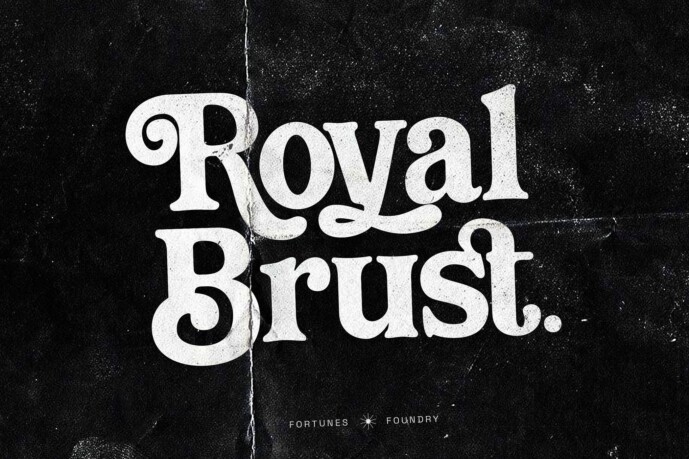
Royal Brust Font
Introducing Royal Brust , a retro-inspired serif font designed for eye-catching advertising, bold headlines, and timeless branding. With its thick, elegant letterforms and subtle curves, this typeface blends mid-century charm with modern versatility, making it perfect for posters, packaging, logos, and editorial design.
Featuring high-contrast strokes, smooth edges, and stylish retro flair, royal brust evokes the golden era of advertising while maintaining flawless readability. Whether you’re crafting a classic luxury ad, a nostalgic brand identity, or a bold print campaign, this font delivers impact and sophistication in every letter.
Features:
• retro-inspired serif style
• Uppercase & lowercase letters
• Punctual & Numbering
• Alternates & Ligatures
• Perfect for branding, posters & editorial design